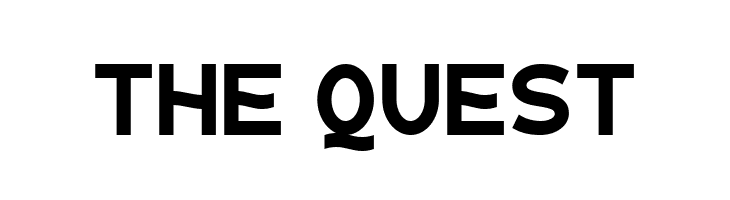
A bold, geometric font with hollow interiors and a modern, digital aesthetic.
A playful, whimsical font with flowing, cursive-like strokes and rounded edges.
A bold, handwritten font with a playful and energetic style.
A dynamic and fluid script font with elegant, flowing letterforms.
A fluid and elegant script font with a dynamic, cursive style.
A geometric, technical font with clean lines and sharp angles, ideal for architectural and technical designs.
A bold, geometric font with strong, blocky characters.
A bold, energetic handwritten font with dynamic curves and a playful style.
A bold, 3D font with thick outlines and a retro-modern style.
A bold, futuristic font with geometric and angular design elements.